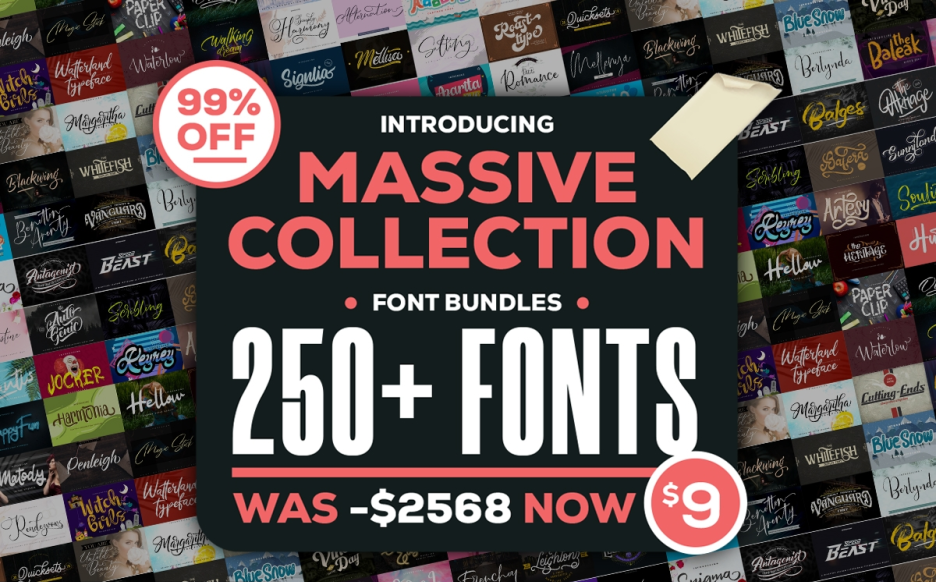
Massive Collection Fonts Bundle
Introducing the Massive Collection Fonts Bundle, a carefully curated selection of versatile font styles designed to elevate your creative projects. This bundle includes a variety of font weights and styles, ensuring you have the perfect typeface for any occasion.
• Diverse font styles including serif, sans-serif, script, and display.
• Multiple weights available for each font, allowing for flexibility in design.
Each font in this collection is crafted with precision, ensuring excellent legibility and aesthetic appeal. Perfect for both print and digital applications.
• Ideal for branding projects, logos, and marketing materials.
• Great for web design, enhancing user interfaces and readability.
• Perfect for print materials like business cards, posters, and brochures.